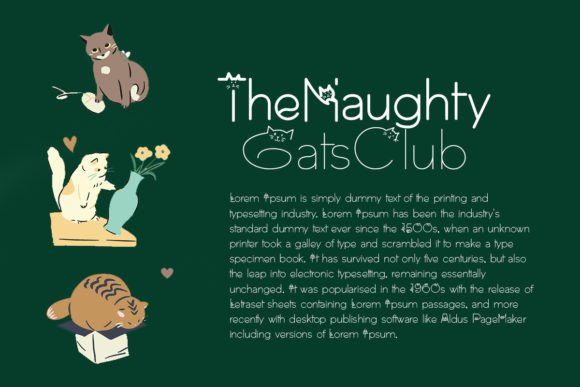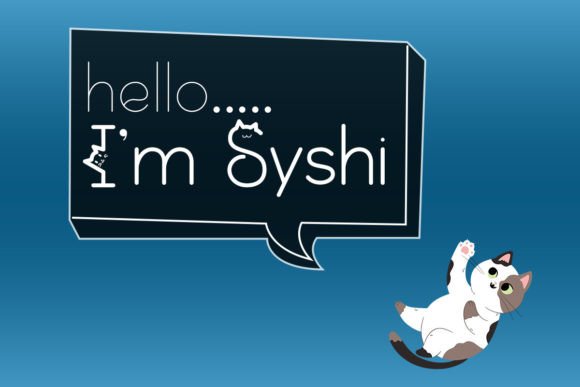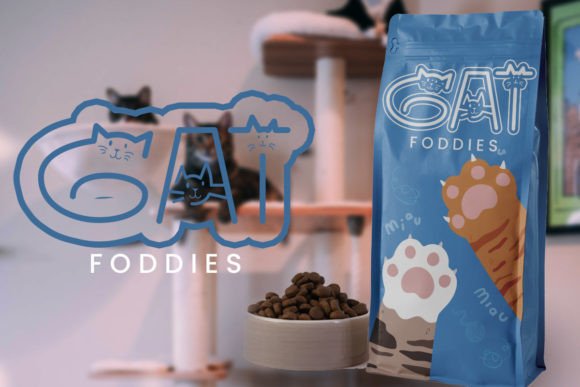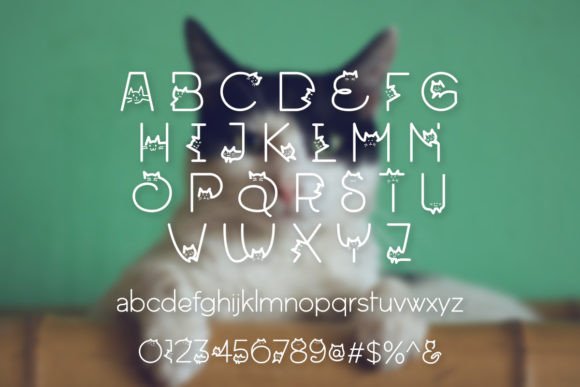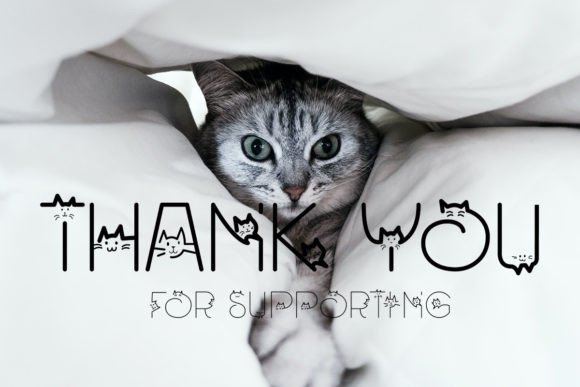
Introduction to Oriental Cats Font
Oriental Cats is a fun and quirky decorative font, perfect for all cat lovers out there.
Its cute and whimsical kitten characters are great for creating unique, lovely designs .